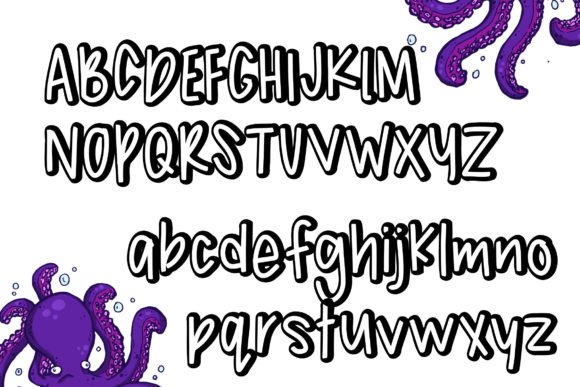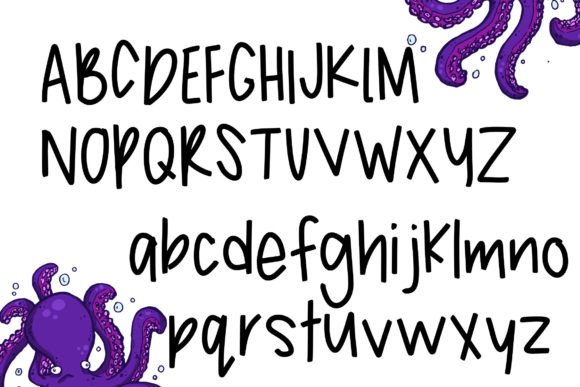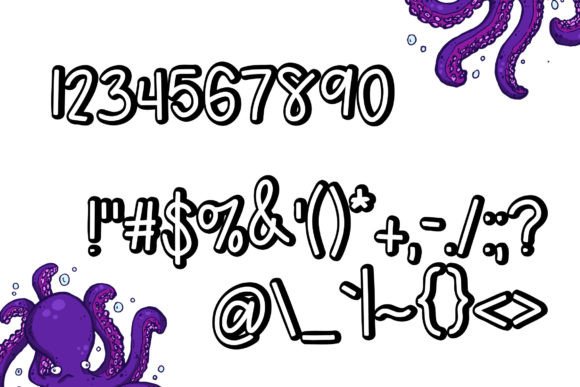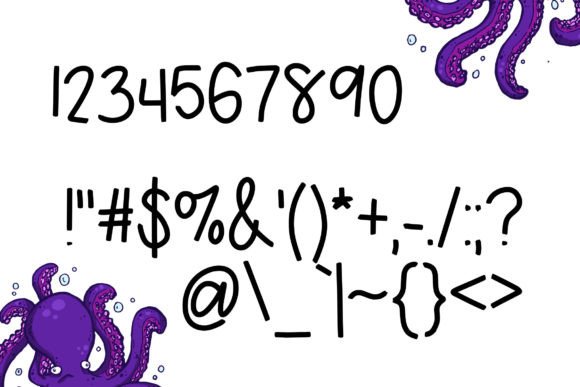
Unleash Your Creativity with Awkward Octo Font: The Ultimate Playful Typeface
Are you tired of using the same old fonts for your designs? Look no further! Introducing Awkward Octo, a bold, playful font that’s sure to make a splash with its thick, outlined letters and quirky style. This fun and energetic typeface is perfect for designers, crafters, and anyone looking to add a touch of whimsy to their projects.
What Makes Awkward Octo Font So Special?
Awkward Octo font is a one-of-a-kind typeface that’s designed to bring a smile to your face. Its thick, outlined letters give it a bold and playful look that’s perfect for a variety of design projects. Whether you’re working on a fun design, a kid-friendly project, or anything that needs a lively, cartoonish vibe, Awkward Octo is the perfect choice.
Perfect for Fun Designs and Kid-Friendly Projects
Awkward Octo font is ideal for designers and crafters who work on projects for kids or want to create fun and playful designs. Its quirky style and bold letters make it perfect for:
- Posters and flyers for kids’ events or parties
- Stickers and labels for kids’ crafts and activities
- Whimsical logos and branding for kid-friendly businesses
- Fun and playful designs for social media and blogs
Bringing Character and Charm to Your Work
Awkward Octo font is more than just a typeface – it’s a way to add character and charm to your designs. Its bold, energetic personality is sure to make your projects stand out from the crowd. With Awkward Octo, you can:
- Create eye-catching posters and flyers that grab attention
- Add a touch of whimsy to your logos and branding
- Make your social media designs more fun and engaging
- Give your crafts and DIY projects a playful touch
Why Choose Awkward Octo Font?
So why choose Awkward Octo font for your next project? Here are just a few reasons:
- Unique and playful style: Awkward Octo font has a one-of-a-kind style that’s sure to make your designs stand out.
- Bold and energetic personality: This font has a bold, energetic personality that’s perfect for designs that need a little extra oomph.
- Kid-friendly and fun: Awkward Octo font is perfect for kid-friendly projects and designs that need a playful touch.
How to Use Awkward Octo Font in Your Designs
Using Awkward Octo font in your designs is easy! Here are a few tips to get you started:
- Pair it with other fonts: Awkward Octo font looks great when paired with other fun and playful fonts.
- Use it for headlines: This font is perfect for headlines and titles that need a bold, playful touch.
- Add some color: Awkward Octo font looks great in bright, bold colors that match its playful personality.
- Experiment with different sizes: This font looks great in a variety of sizes, from small and subtle to large and bold.
In conclusion, Awkward Octo font is a unique and playful typeface that’s perfect for designers, crafters, and anyone looking to add a touch of whimsy to their projects. Its bold, energetic personality and quirky style make it ideal for fun designs, kid-friendly projects, and anything that needs a lively, cartoonish vibe. So why wait? Dive into creativity with Awkward Octo font and make a splash with your designs!